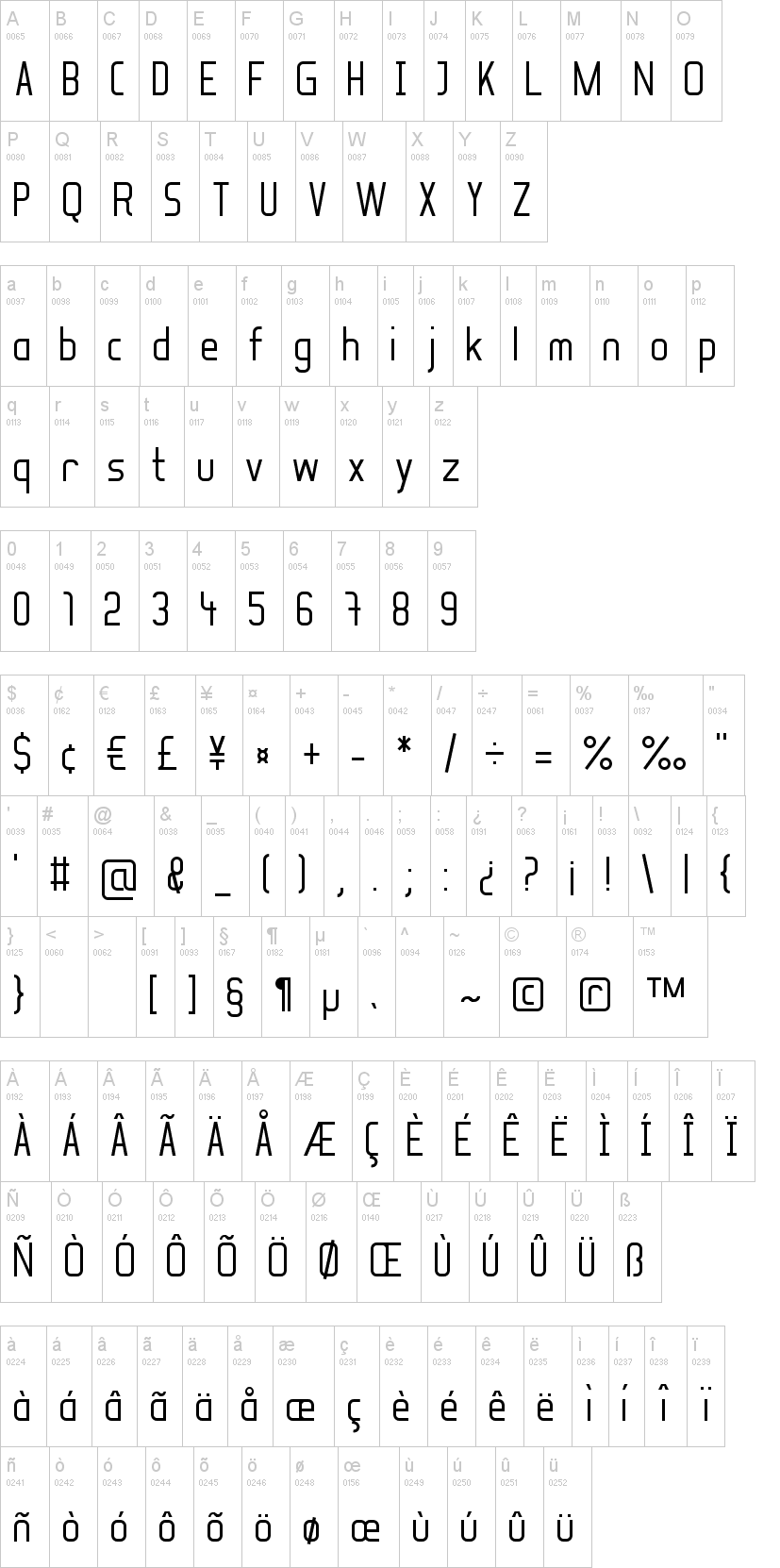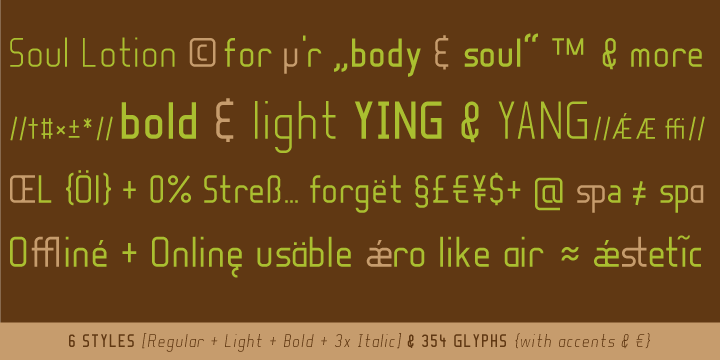
Шрифт Soul Lotion
Headline Font / Display Font / Sans Serif Font "Soul Lotion"
with 6 stlyes (regular, bold, light + 3x italic) & 354 glyphs
inkl. accents &